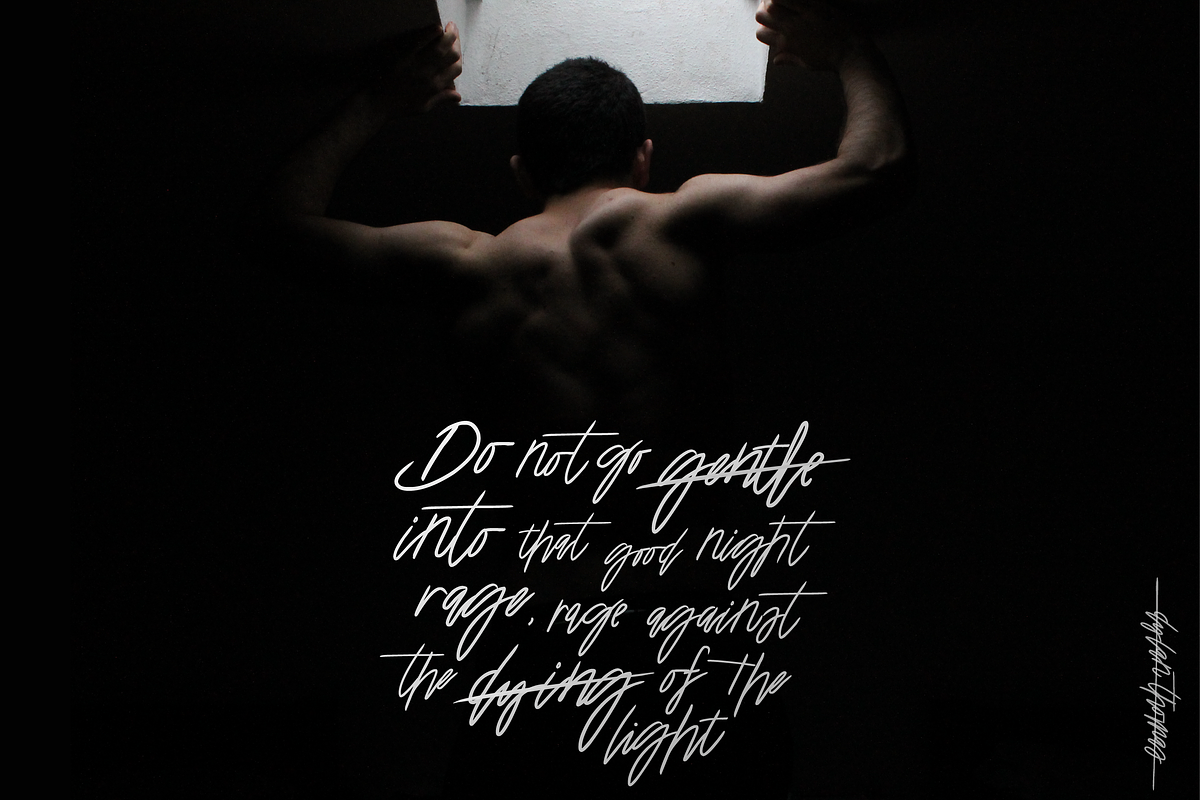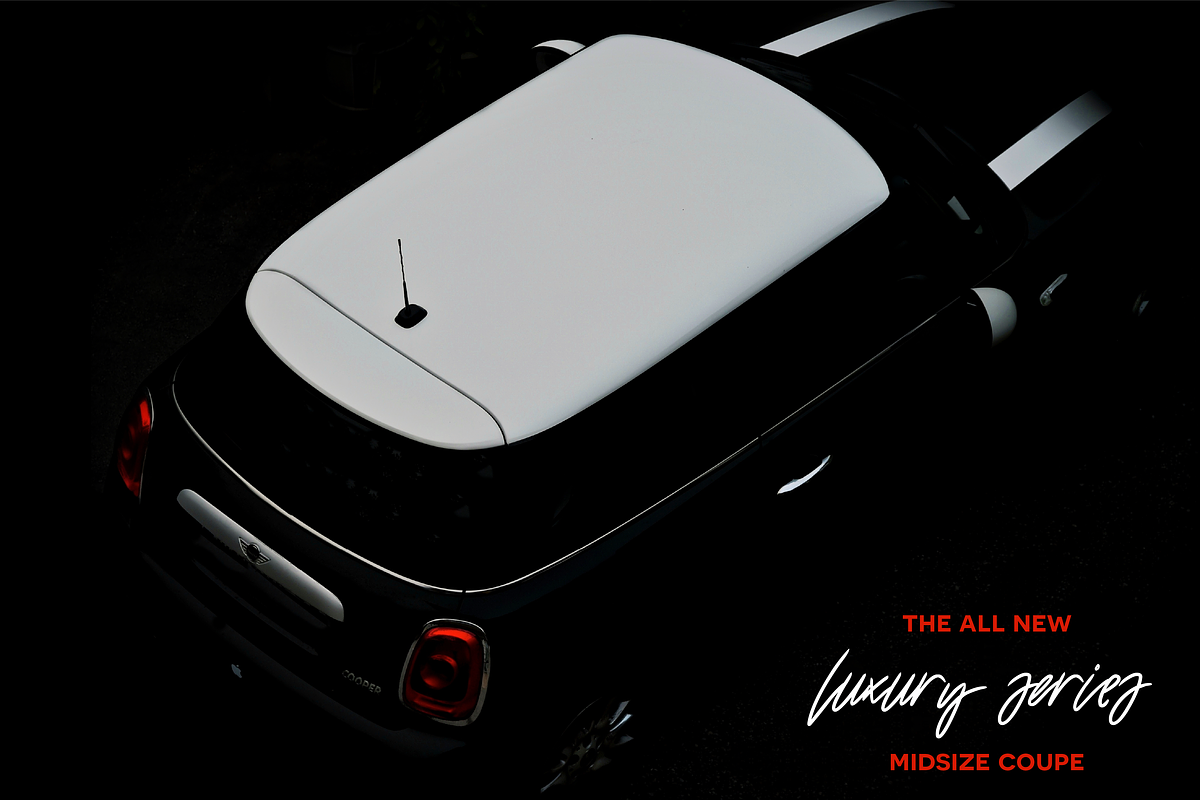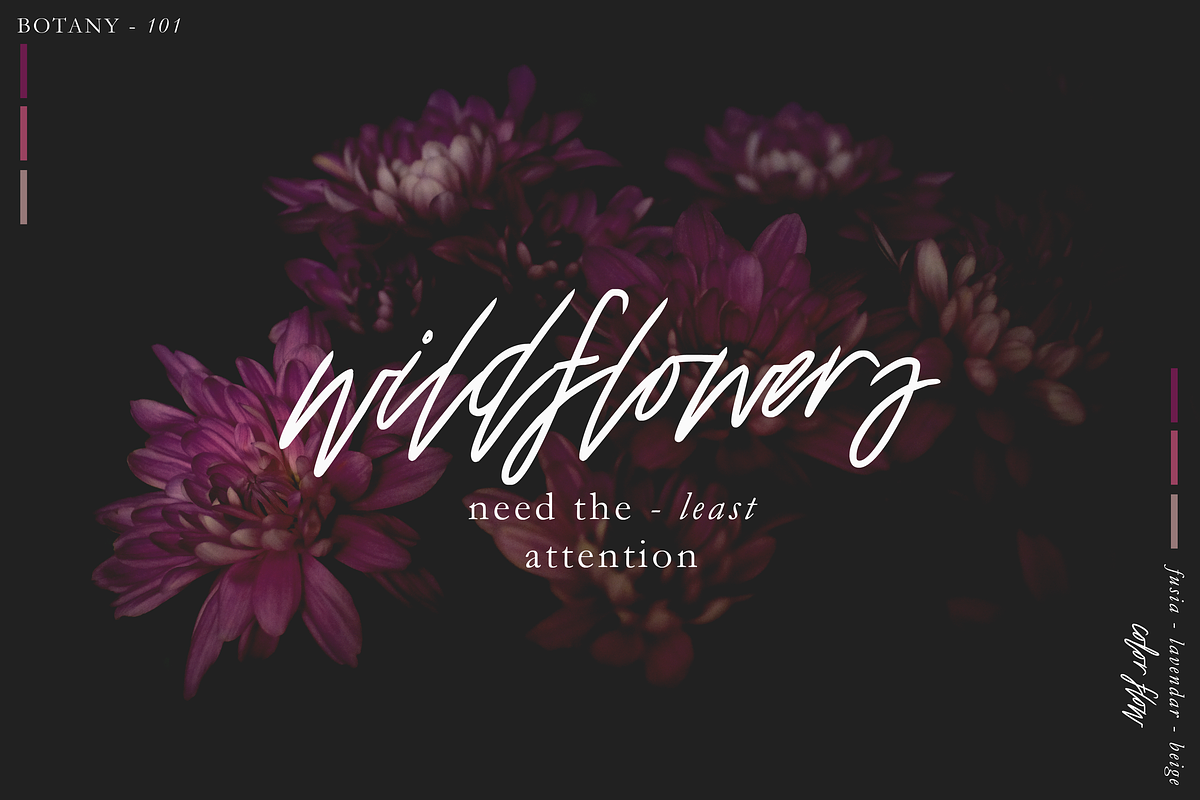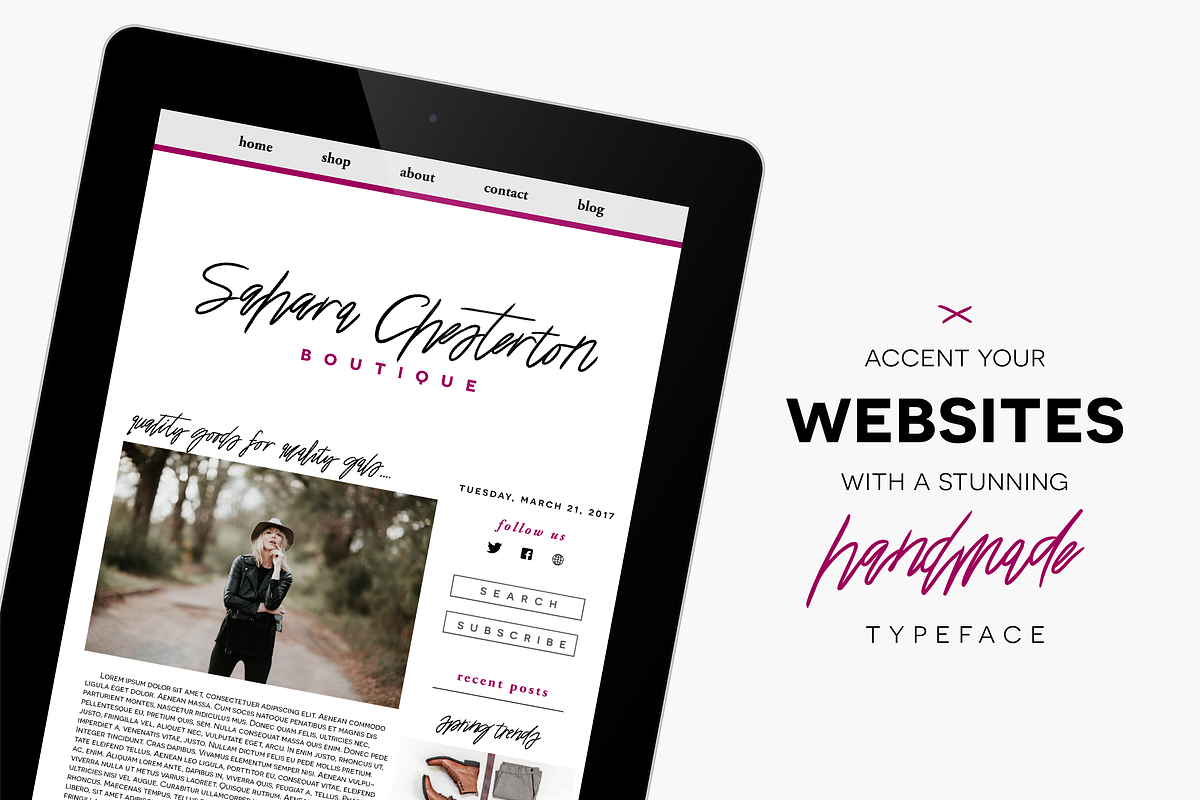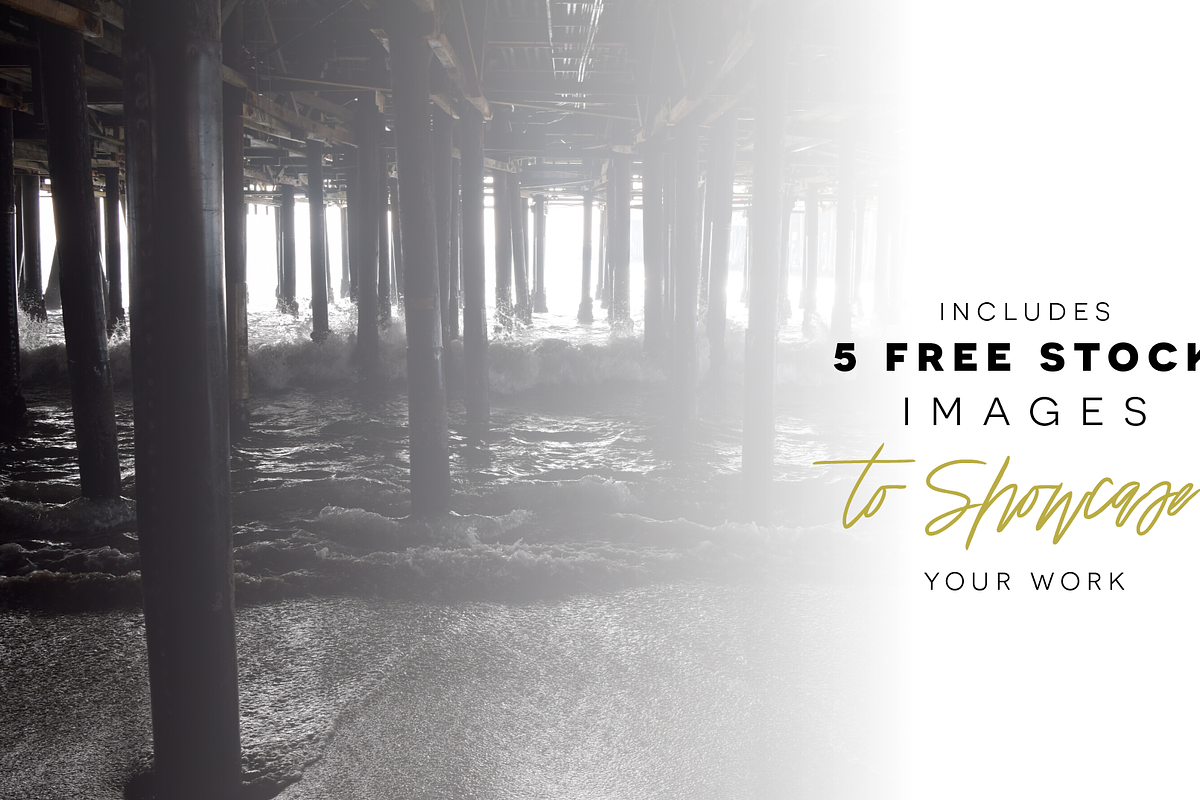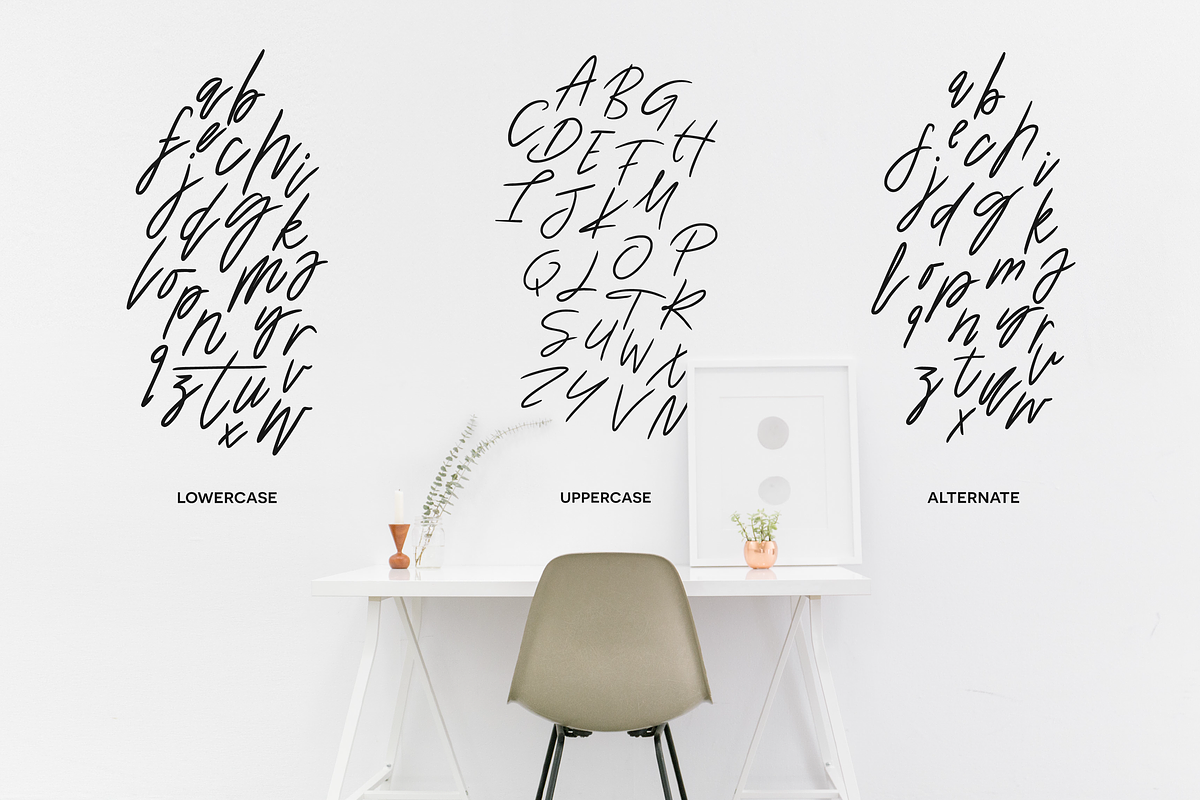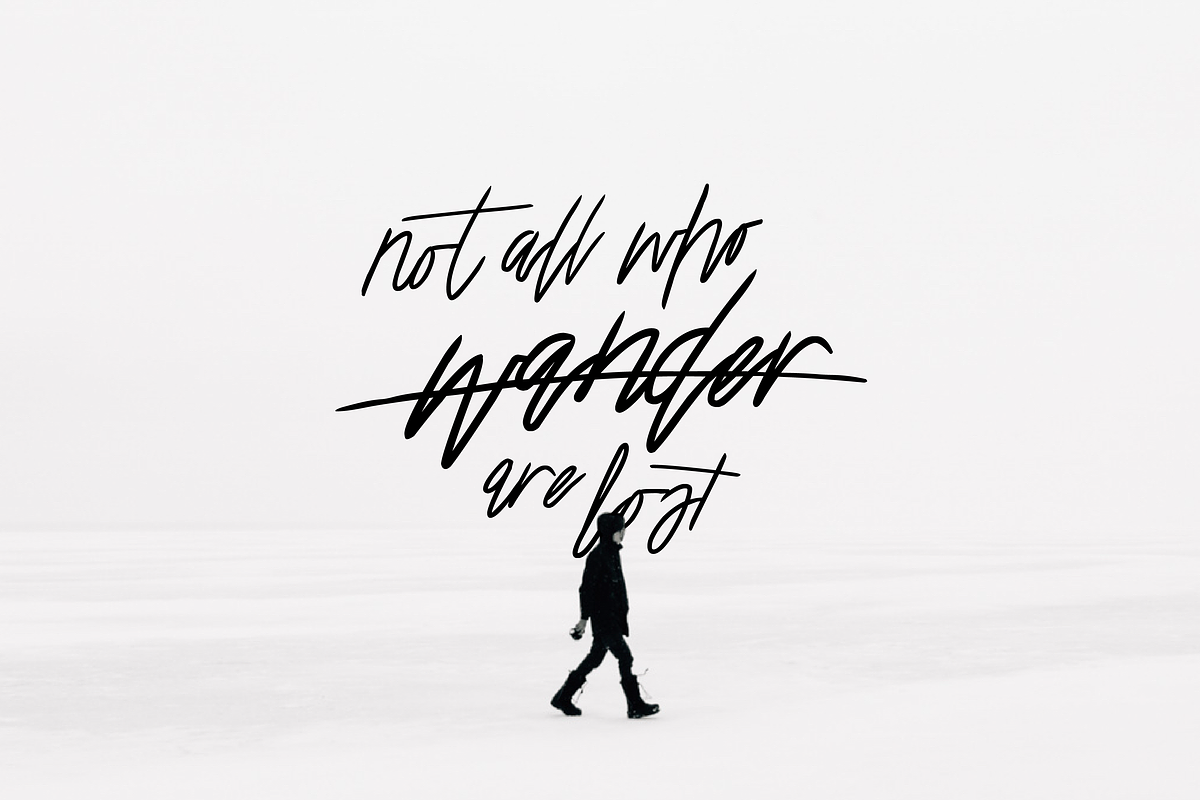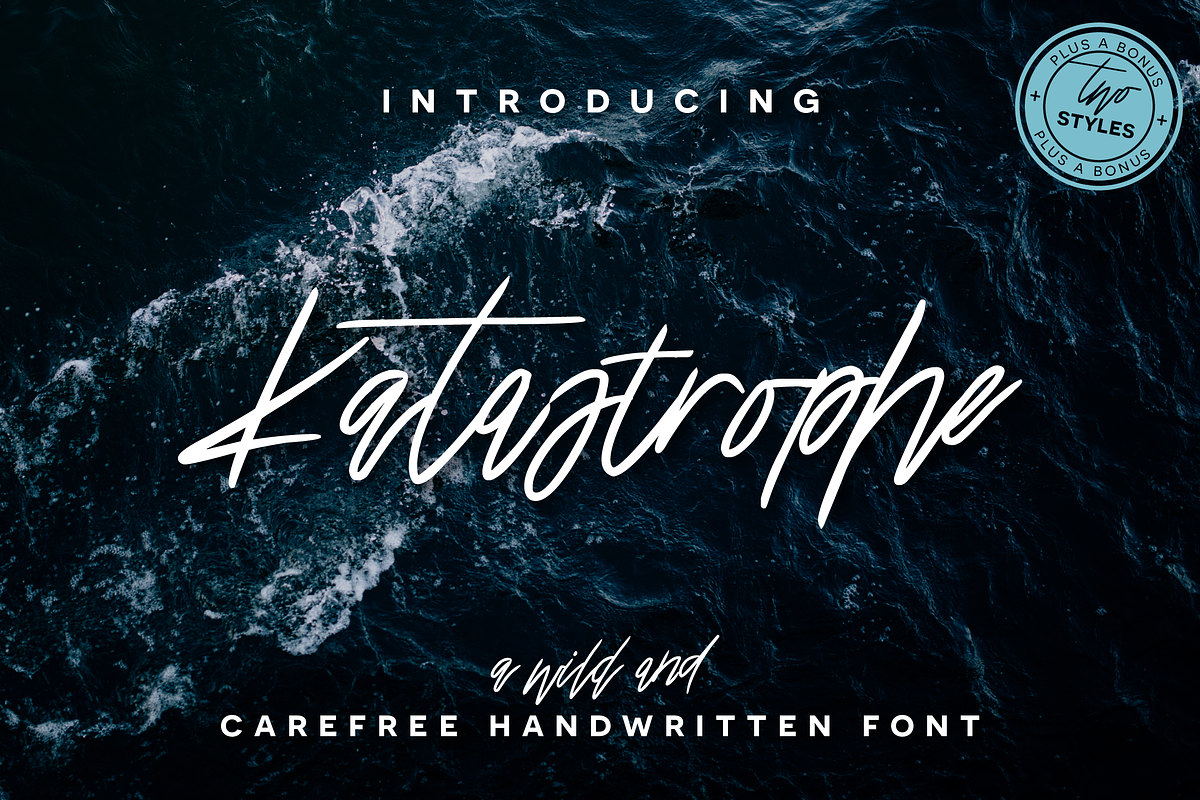
Katastrophe Font + Bonus
Katastrophe Font + Bonus by Flycatcher Design is a font selected for branding, posters, packaging, typography.
- ABOUT KATASTROPHE : Katastrophe is a wild & carefree script font with a playful baseline and a full set of bonus alternate characters!